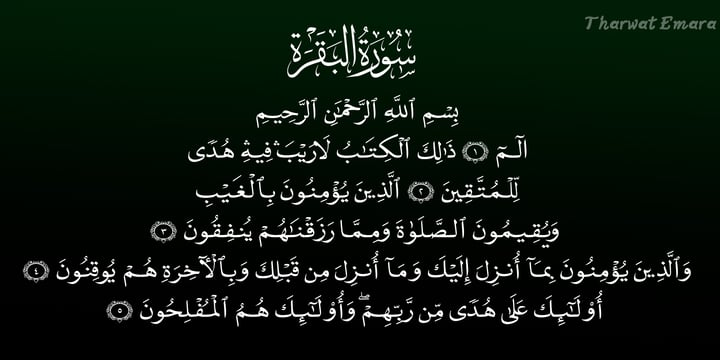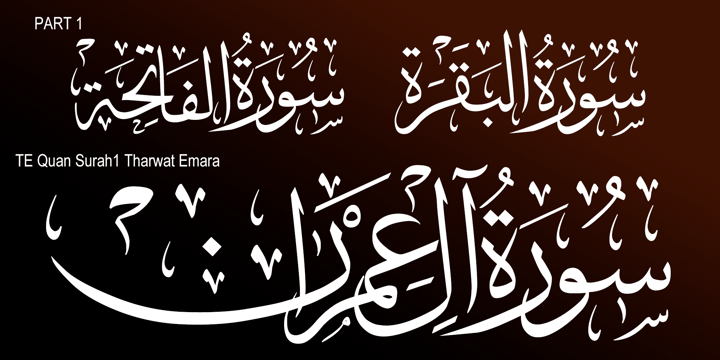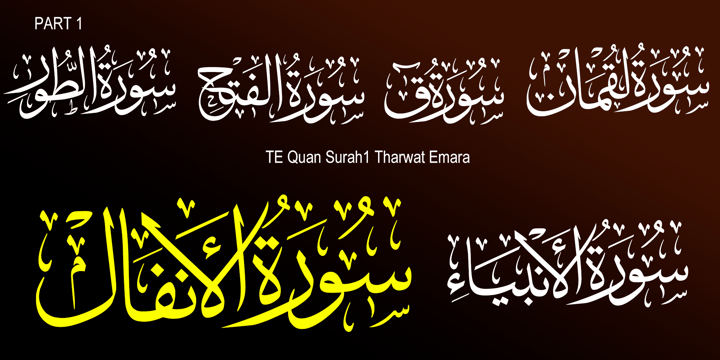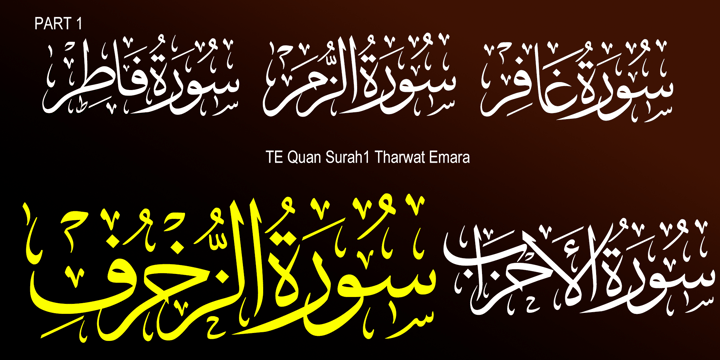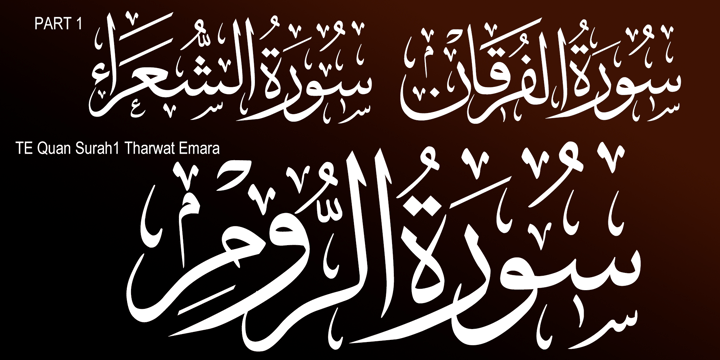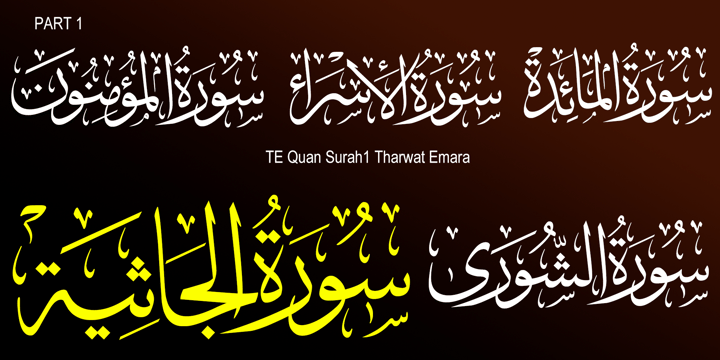
The Hafs Quran Bundle is a comprehensive collection of fonts specifically designed for high-quality Quranic typography. This bundle includes the Hafs text font for Quranic verses, along with dedicated Surah title fonts, offering a complete solution for digital Mushaf production, publishing, educational materials, and Islamic applications. Each font is meticulously crafted to ensure clarity, consistency, and authentic Arabic calligraphic aesthetics, making it ideal for professional typesetting workflows. Key features include full Quran coverage, Quranic symbols and marks, and high-quality Arabic typography, ensuring suitability for both print and digital publishing.